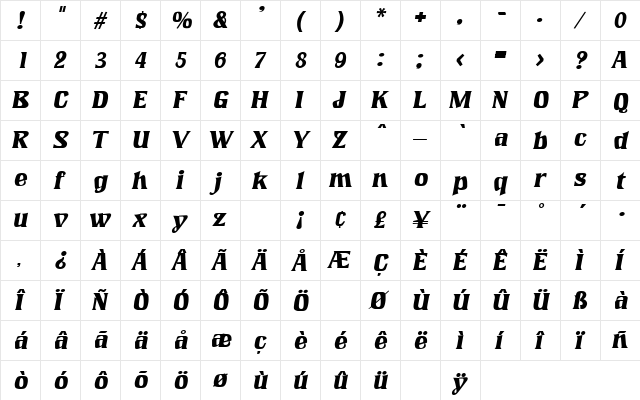
LookingGlass Italic
Design Context for LookingGlass Typeface
LookingGlass is a composed and adaptable typeface that performs quietly and consistently across a wide range of design contexts. The slanted form adds forward momentum and visual energy.
Pro Tip: Try LookingGlass for annotation and caption copy alongside an upright companion — the contrast in angle creates a dynamic but ordered typographic system.